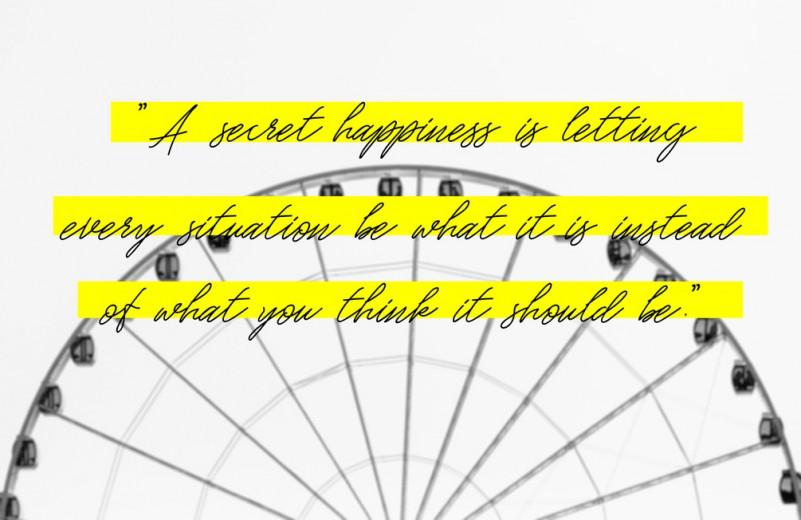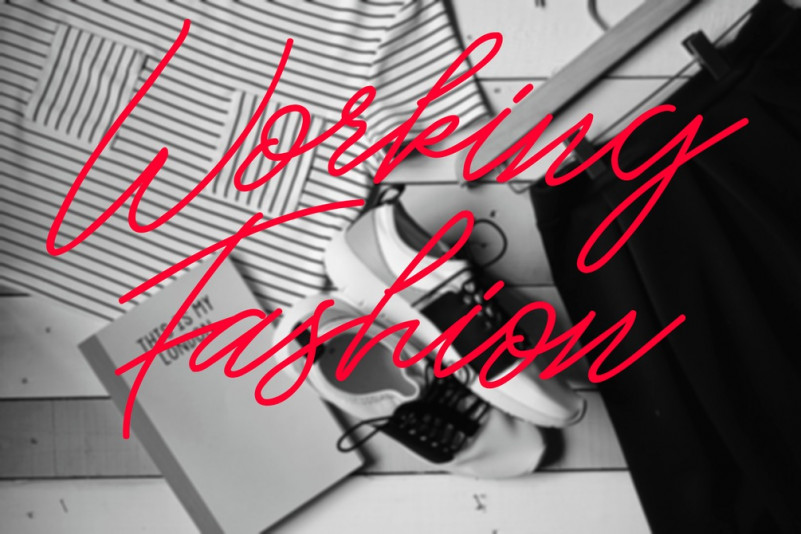
Adolf Wolfett Handwritten Font
Adolf Wolfett is a signature script font, with simple, stylish and adaptable vibes. You can successfully add this elegant font to wedding invitations, business cards, greetings cards, social media posts, wall art, website and more. This font is PUA encoded which means you can access all of the glyphs and swashes with ease.